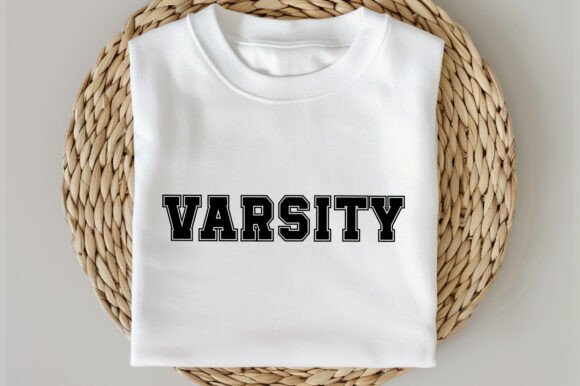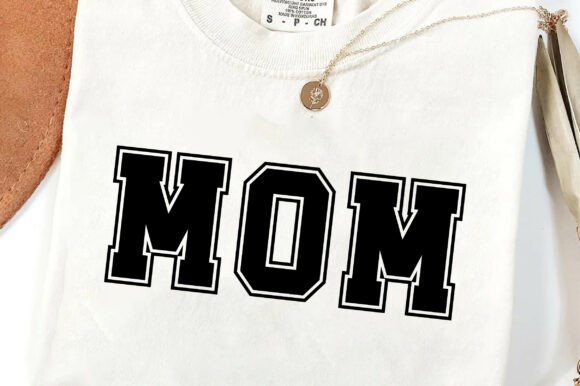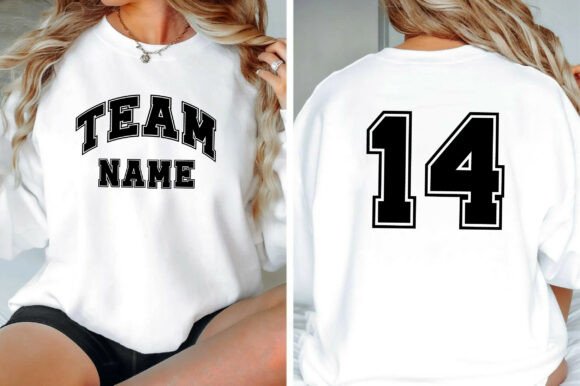
Introducing College Graduation Font: The Ultimate Choice for Sports Enthusiasts and Designers
Are you a designer or a sports enthusiast looking for a font that captures the classic “varsity” feel? Look no further than the College Graduation font. With its bold and sturdy structure, this strong slab serif font is perfect for evoking a sense of pride and athleticism. In this article, we’ll explore the features and benefits of the College Graduation font, and why it’s an ideal choice for jerseys, team logos, and projects related to football, baseball, basketball, and gym apparel.
The Classic “Varsity” Feel
The College Graduation font is designed to evoke the classic “varsity” feel that’s synonymous with sports teams and athletic programs. Its bold and sturdy structure gives it a powerful presence that’s perfect for making a statement. Whether you’re designing a jersey, team logo, or promotional materials, this font is sure to grab attention and convey a sense of pride and athleticism.
Key Features of College Graduation Font
So, what makes the College Graduation font so special? Here are some of its key features:
- Bold and Sturdy Structure: The College Graduation font has a bold and sturdy structure that gives it a powerful presence.
- Slab Serif Design: The font features a slab serif design that’s perfect for creating a classic, varsity-style look.
- Athletic and Sporty Feel: The font’s design and structure evoke a sense of athleticism and pride, making it perfect for sports-related projects.
- Highly Versatile: The College Graduation font is highly versatile and can be used for a wide range of projects, from jerseys and team logos to promotional materials and more.
Perfect for Sports Enthusiasts and Designers
The College Graduation font is perfect for sports enthusiasts and designers who want to create a classic, varsity-style look. Whether you’re designing a jersey, team logo, or promotional materials, this font is sure to deliver. Its bold and sturdy structure makes it easy to read and understand, even from a distance.
Ideal for Jerseys, Team Logos, and Sports Apparel
The College Graduation font is an ideal choice for jerseys, team logos, and sports apparel. Its powerful features make it perfect for creating a bold and eye-catching design that’s sure to grab attention. Here are some ways you can use the College Graduation font:
- Jerseys: Use the College Graduation font to create bold and eye-catching jerseys that showcase your team’s name and logo.
- Team Logos: Create a powerful team logo that evokes a sense of pride and athleticism with the College Graduation font.
- Sports Apparel: Use the font to create a range of sports apparel, from t-shirts and hoodies to hats and more.
Tips for Using College Graduation Font
Here are some tips for using the College Graduation font:
- Use it Boldly: The College Graduation font is designed to be used boldly, so don’t be afraid to make it big and bold.
- Pair it with Other Fonts: Experiment with pairing the College Graduation font with other fonts to create a unique and eye-catching design.
- Use it Consistently: Use the College Graduation font consistently across all your designs to create a strong brand identity.
In conclusion, the College Graduation font is a powerful and versatile font that’s perfect for sports enthusiasts and designers. Its bold and sturdy structure, slab serif design, and athletic and sporty feel make it an ideal choice for jerseys, team logos, and projects related to football, baseball, basketball, and gym apparel. With its highly versatile design, you can use the College Graduation font for a wide range of projects. So why wait? Download the College Graduation font today and start creating bold and eye-catching designs that showcase your team’s pride and athleticism.